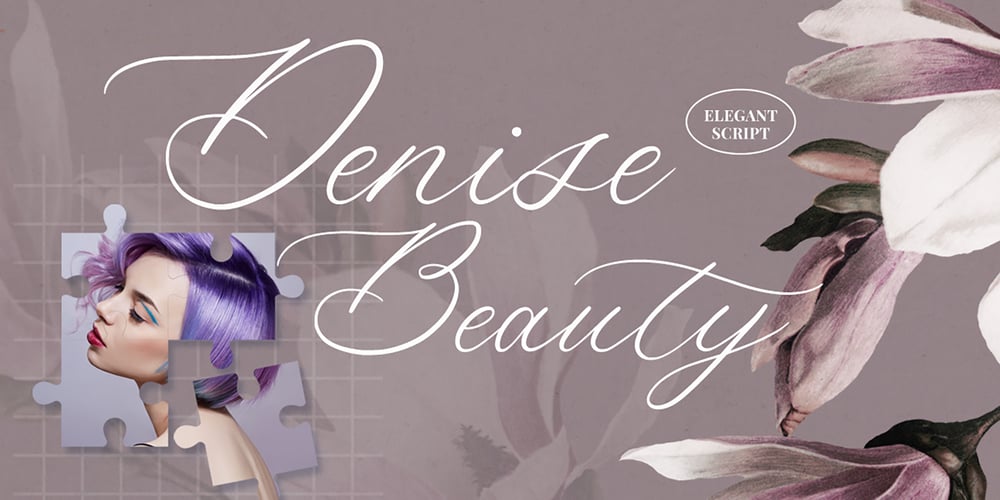
Denise Beauty Font Family was designed by Tezar Tantular and published by Keristyper Studio. Denise Beauty contains 1 styles and family package options. Meet our new modern signature font – Denise Beauty. This beautiful script is for those who are needing of elegance and stylish character for their designs and is particularly well suited for wedding invitations, save the date cards, and feminine branding.Denise Beauty Font multilingual support: Afrikaans, Albanian, Catalan, Danish, Dutch, English, Estonian, French, Finnish, German, Icelandic, Indonesian, Italian, Malay, Norwegian, Portuguese, Spanish, Swedish, Zulu, and many more.What’s Included : Standard & Multilingual glyphs Ligature Works on PC & Mac Simple installations Accessible in Adobe Illustrator, Adobe Photoshop, Adobe InDesign, and even work on Microsoft Word. Hope you enjoy our font!